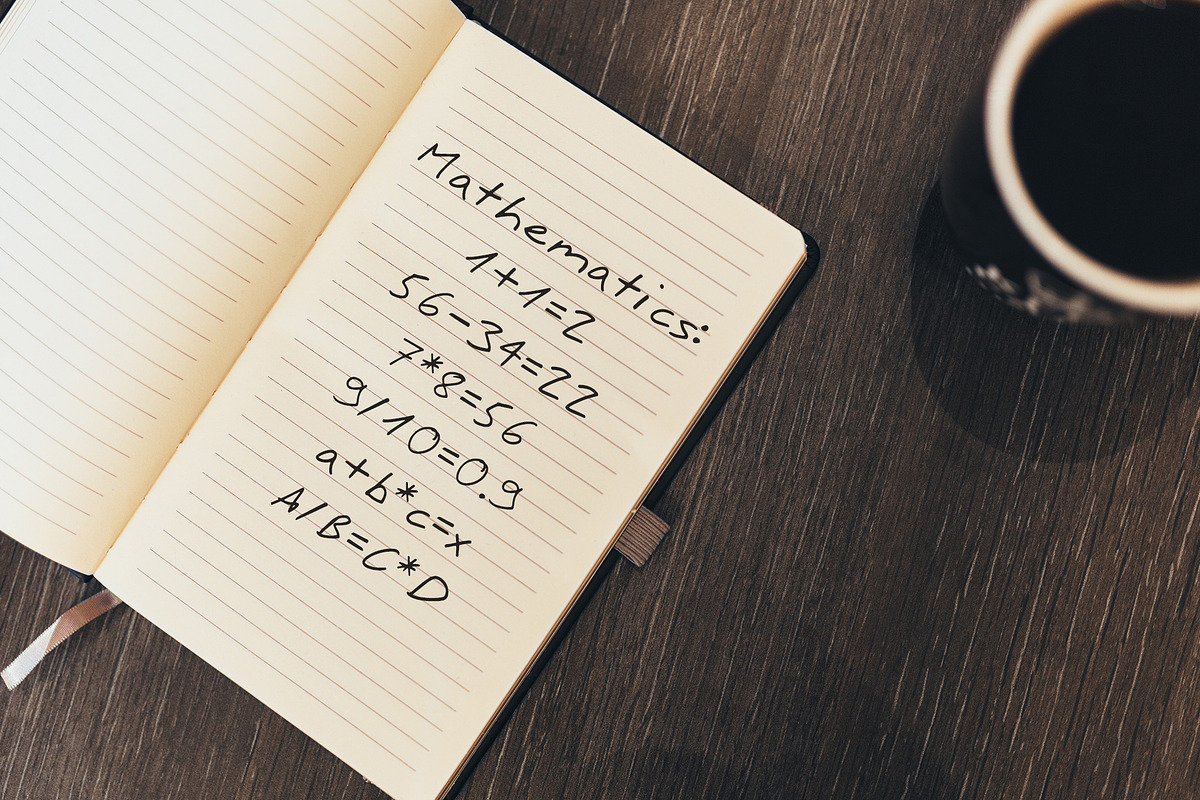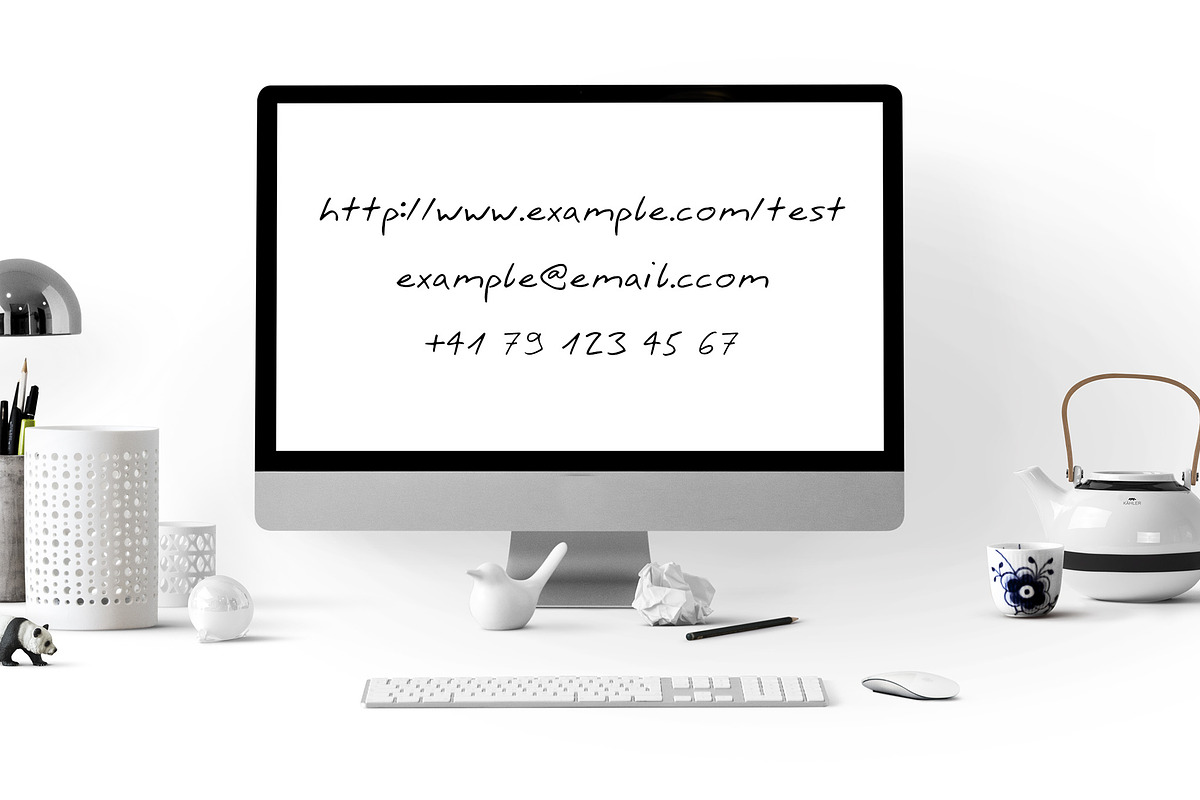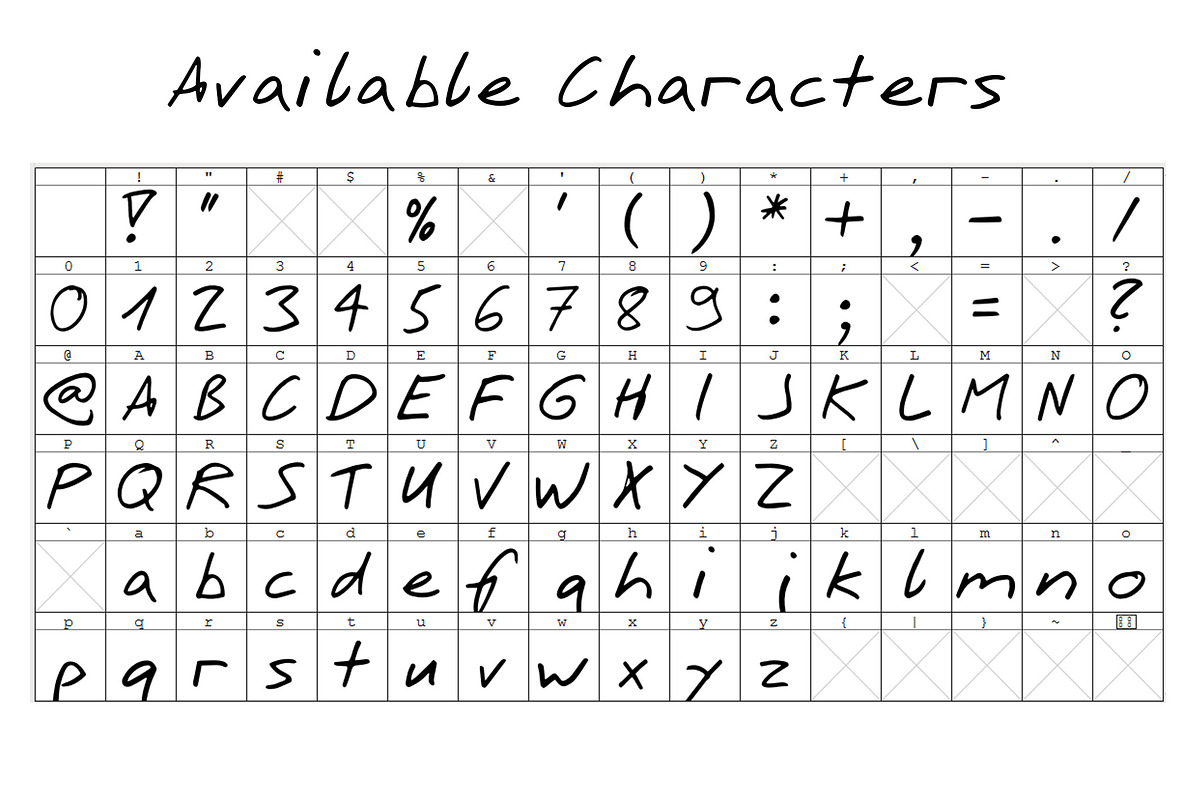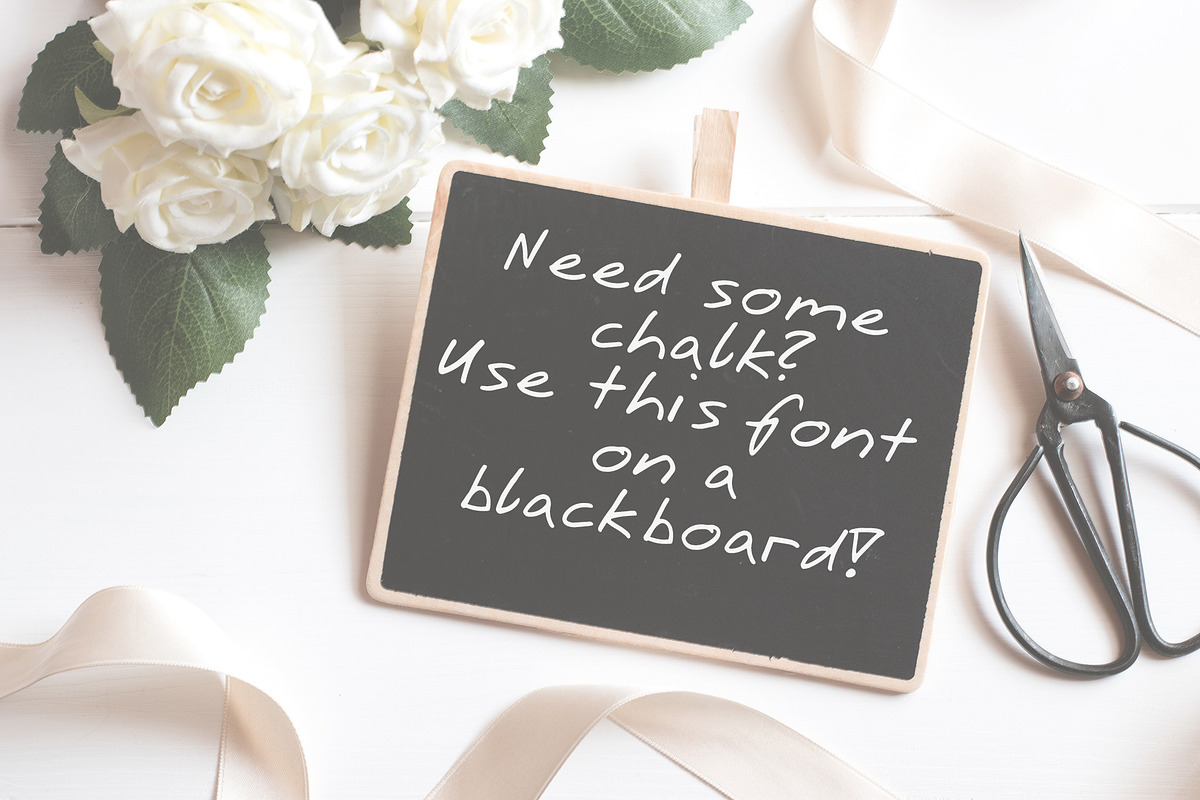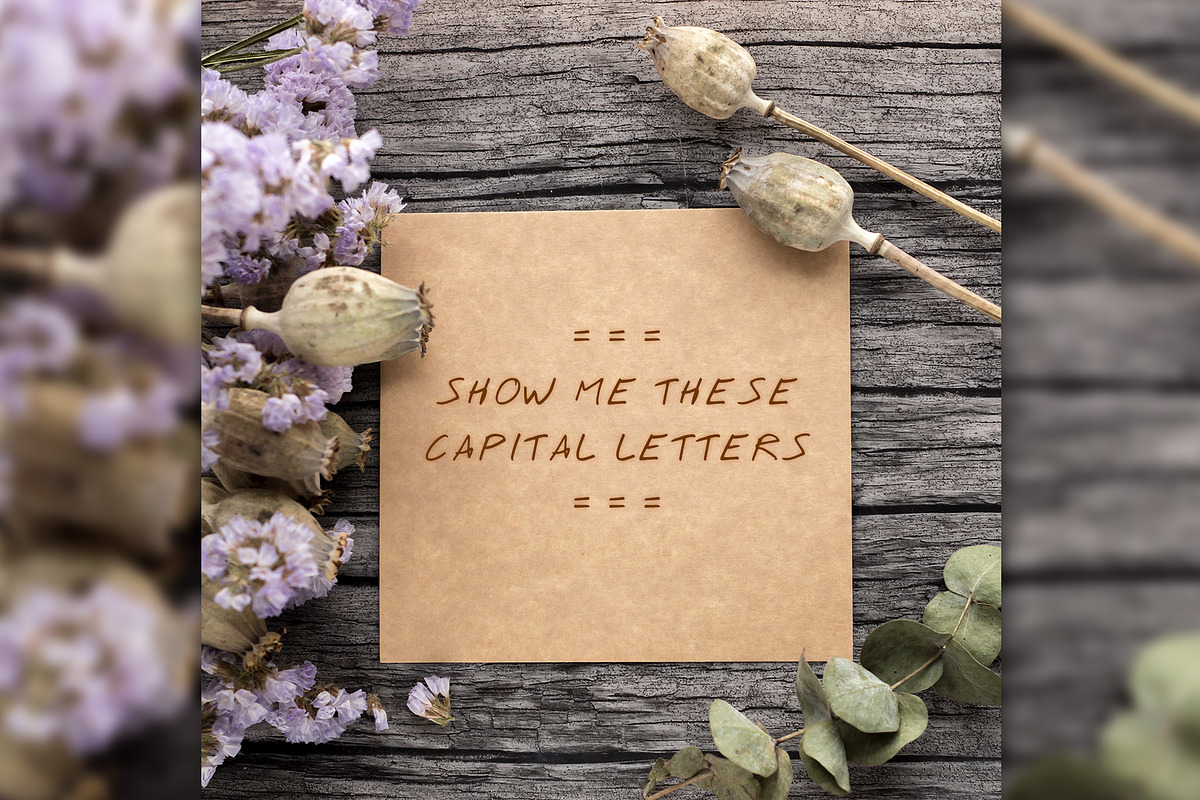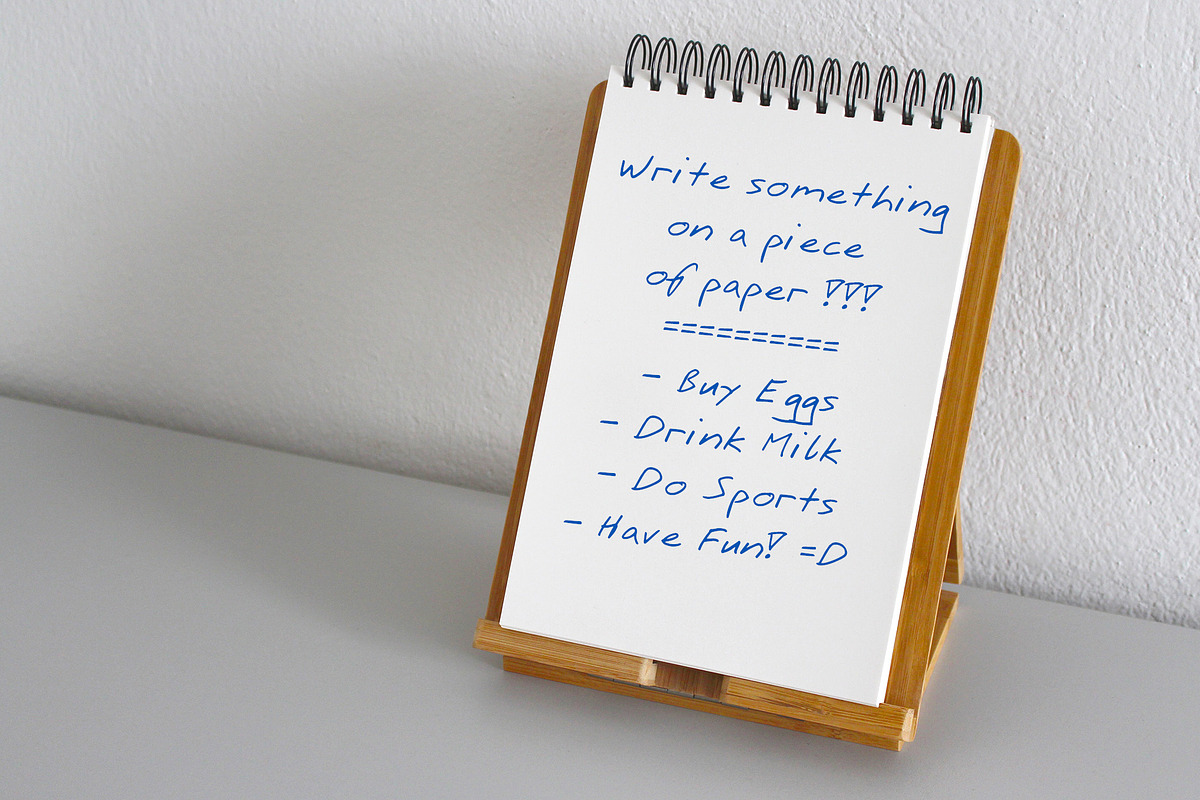
Reto Script Font
This is my first font I have ever created! :)
Just a normal handwriting that is useful when you are in need of simulating normal handwriting.
Handwriting of a real left-hander
Letter A - Z / a – z / 0-9 and special characters
using as a regular handwriting
simulating writings on boards
feeling like a lefty even if you are a right handed